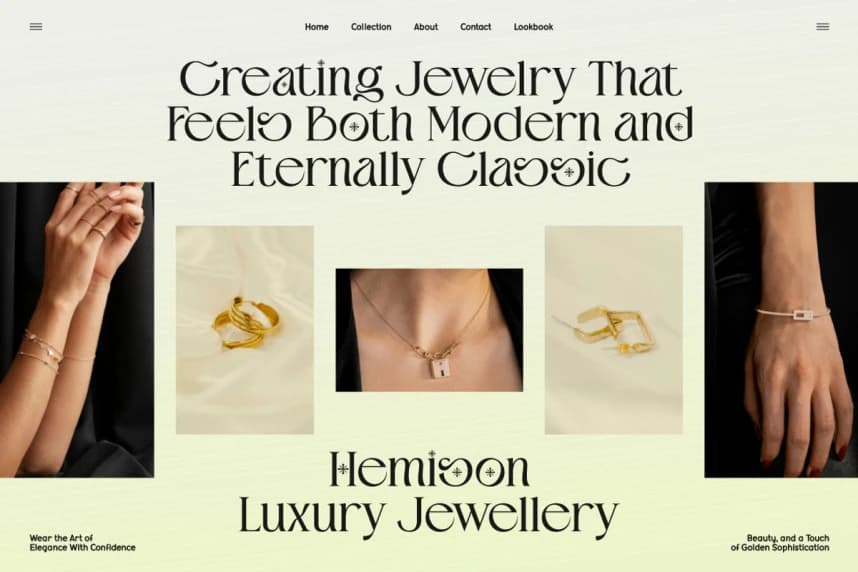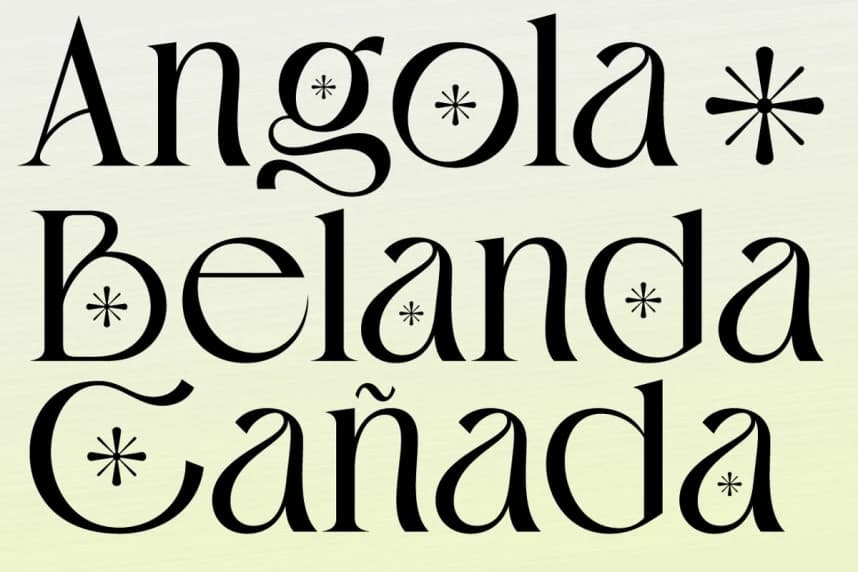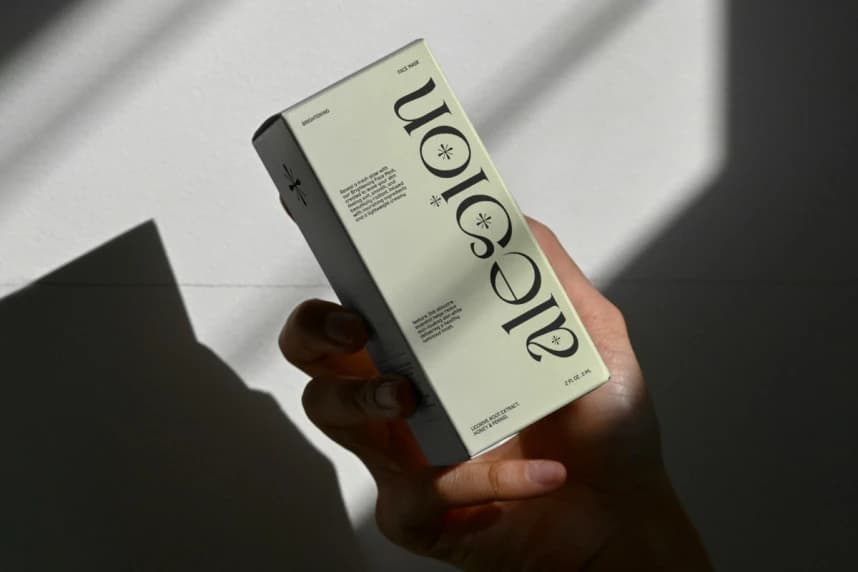
Desinore Font
Desinore Font is an elegant luxury serif font crafted for modern branding and sophisticated visual identities. Featuring stylish ligatures, graceful alternates, and high-contrast letterforms, this typeface blends timeless elegance with a contemporary fashion aesthetic.